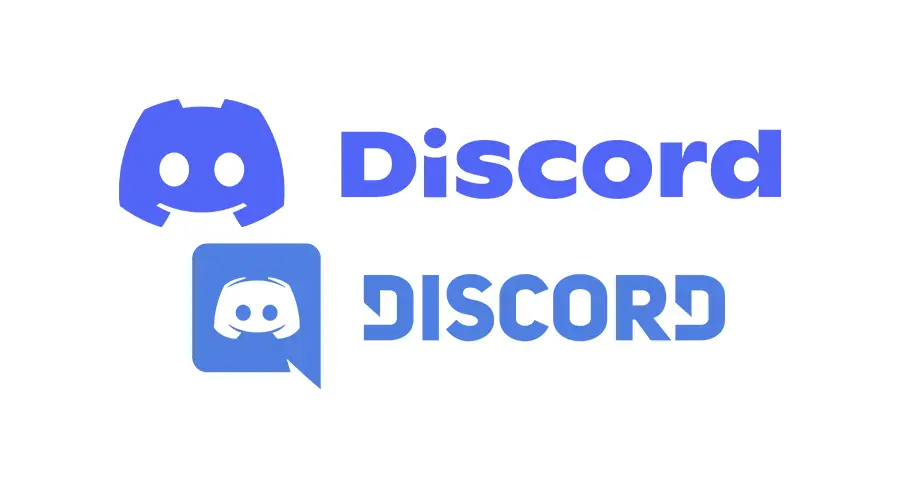
Looking for the Discord font for your next project? Look no further! In this article, we’ll try to answer all the questions about Discord, its logo, font, etc.
What font is used in the Discord logo?
Before naming the font, you have to know that Discord has had two logo changes in its 8-year history.
Discord’s Old Logo and Font:
The original Discord mascot logo was launched in 2015 and featured the company’s mascot, Clyde, with the word “Discord”. The font used for the Discord logo is a modified version of Uni Sans Heavy , which was designed by Svet Simov in 2009. Try generate or download the font.
The Uni Sans font family has four weights, ranging from thin to heavy, and each comes with italics. The Uni Sans Heavy font is a part of this family. Both the thin and heavy weights with caps can be downloaded for free (free for commercial use). The font is characterized by excellent legibility in both web and print designs.
Discord’s New Logo and Font:
In May 2021, Discord celebrated its sixth birthday by updating its logo. The new logo features a more stylized version of Clyde, the company’s mascot, with a unique lilac-blue shade of color. The logo also uses a customized version of the Ginto Nord Bold font. You can also try to generate or download the font.
Seb McLauchlan created the sans-serif typeface family known as Ginto Nord, and Swiss foundry Dinamo released it in 2018. The typeface combines circular and rectangular forms to create tension and visual interest. It is available in eight weights, including italics.
The new logo is a departure from the previous logo, which featured a more flat and geometric design. The new logo is more rounded and has a more playful feel. The lilac-blue color is also a departure from the previous logo’s blue and green color scheme. The new color scheme is more vibrant and eye-catching.
The customized version of the Ginto Nord font is also a departure from the previous logo’s font. The new font is more rounded and has a more friendly feel. The overall effect of the new logo is a more modern and inviting look for Discord.
What font is used on the Discord website, apps, and software?
Starting from December 1, 2022, Discord is using a new custom font called “GG Sans”. This change will be implemented across all platforms, including the mobile and desktop apps, website, and blog. By using the GG Sans font, Discord gains the ability to customize its font in the future, ensuring the best user experience. Unfortunately, GG Sans is not currently available as an open-source font. Check out our font generator to feel the font. Try to generate or download the font.
2. Italics: Use single asterisks (text) or underscores (text) before and after the text you want to make italic. Example: *This text will be italic* or _This text will be italic_
3. Bold Italics: Combine double asterisks and single asterisks or underscores (text or text) before and after the text you want to make bold and italic. Example: ***This text will be bold and italic*** or **_This text will be bold and italic_**
4. Underline: Use double underscores (text) before and after the text you want to underline. Example: __This text will be underlined__
5. Underline Italics: Combine double underscores and single asterisks or underscores (text or __ text __) before and after the text you want to underline and italicize. Example: __*This text will be underlined and italic*__ or __ _This text will be underlined and italic_ __
6. Underline Bold: Combine double underscores and double asterisks (text) before and after the text you want to underline and bold. Example: __**This text will be underlined and bold**__
7. Underline Bold Italics: Combine double underscores, double asterisks, and single asterisks (text) before and after the text you want to underline, bold, and italicize. Example: __***This text will be underlined, bold, and italic***__
The new font choices reflect the company’s desire to update and modernize its branding while maintaining a playful and inviting feel. If you’re interested in recreating or using similar fonts for your own projects, then you can check out live font generators with the option to download the selected font.